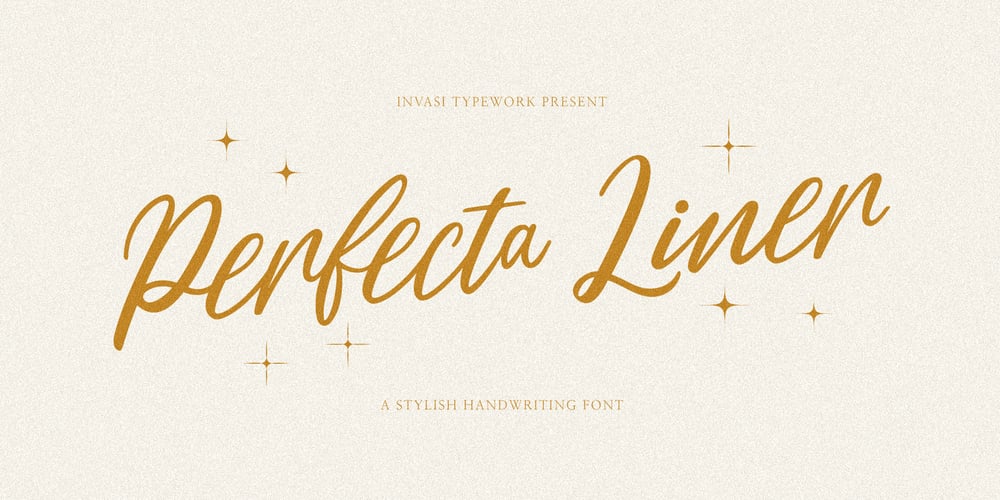
Perfecta Liner
Perfecta Liner font
Perfecta Liner Font Family was designed by Gha Arizal and published by Invasi Studio. Perfecta Liner contains 1 styles and family package options. Perfecta Liner is a handwritten organic font that is perfect for branding, signatures, wedding invitations, promotions, product packaging, and more. Perfecta Liner is a modern, clean, authentic font. Perfecta Liner comes with ligatures, alternates, and supports 60+ Latin-based languages.Features: Total 261 Glyph Uppercase & Lowercase Numerals & Punctuation Alternates and Ligatures Multilanguage Supports 60+ Latin based languages